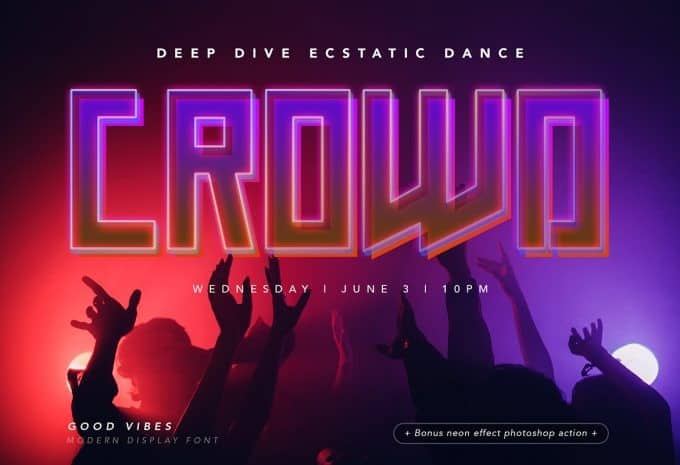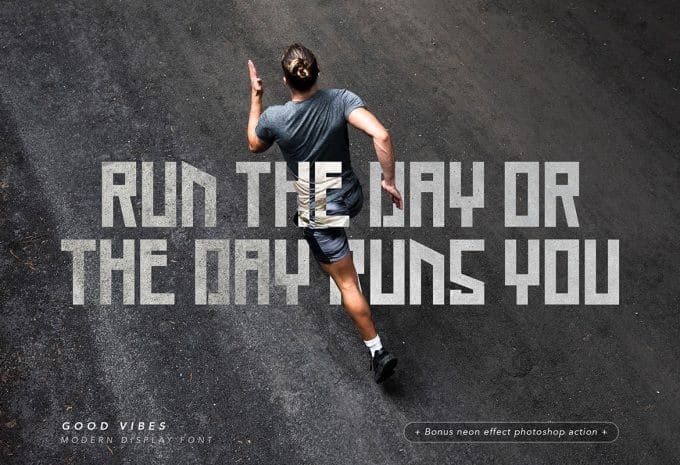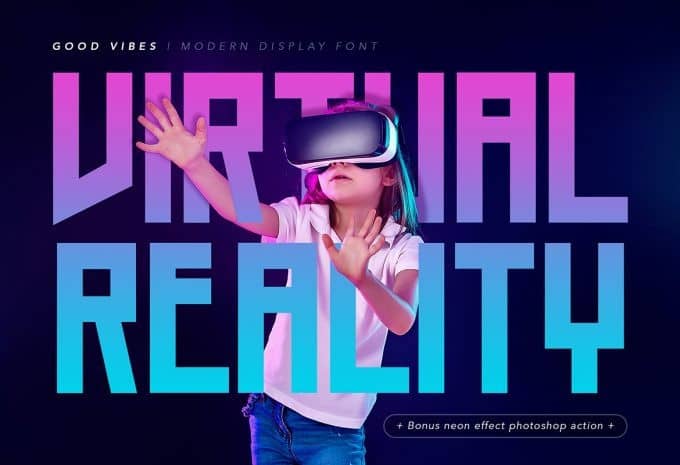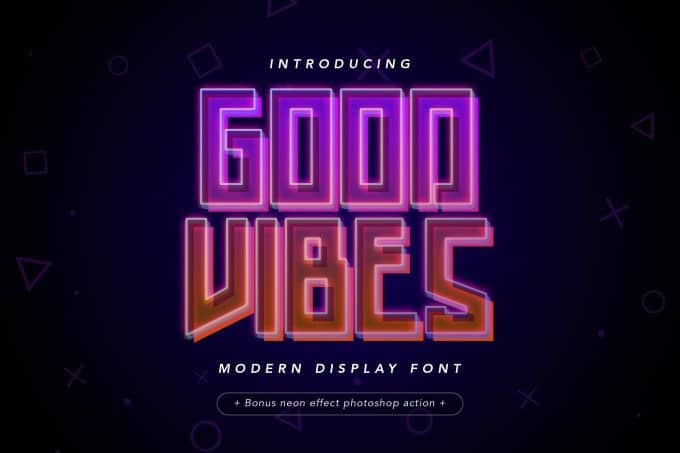
Good Vibes Display Font is a stunning classy modern bold sans serif. It’s an Elegant Sans serif typeface, Fashionable, Classy but still Modern. Made from font designer named peterdraw. It’s was born inspired by neon, modern technology and sport. It is a display font that perfect for logo, quote text, dark theme, music and a perfect fit for a sport themed – or a stylish text overlay to any background image. It built with a high level of legibility.
Good Vibes Display Font comes with a neon effect Photoshop action bonus. It helps you make a neon effect for this font easily!